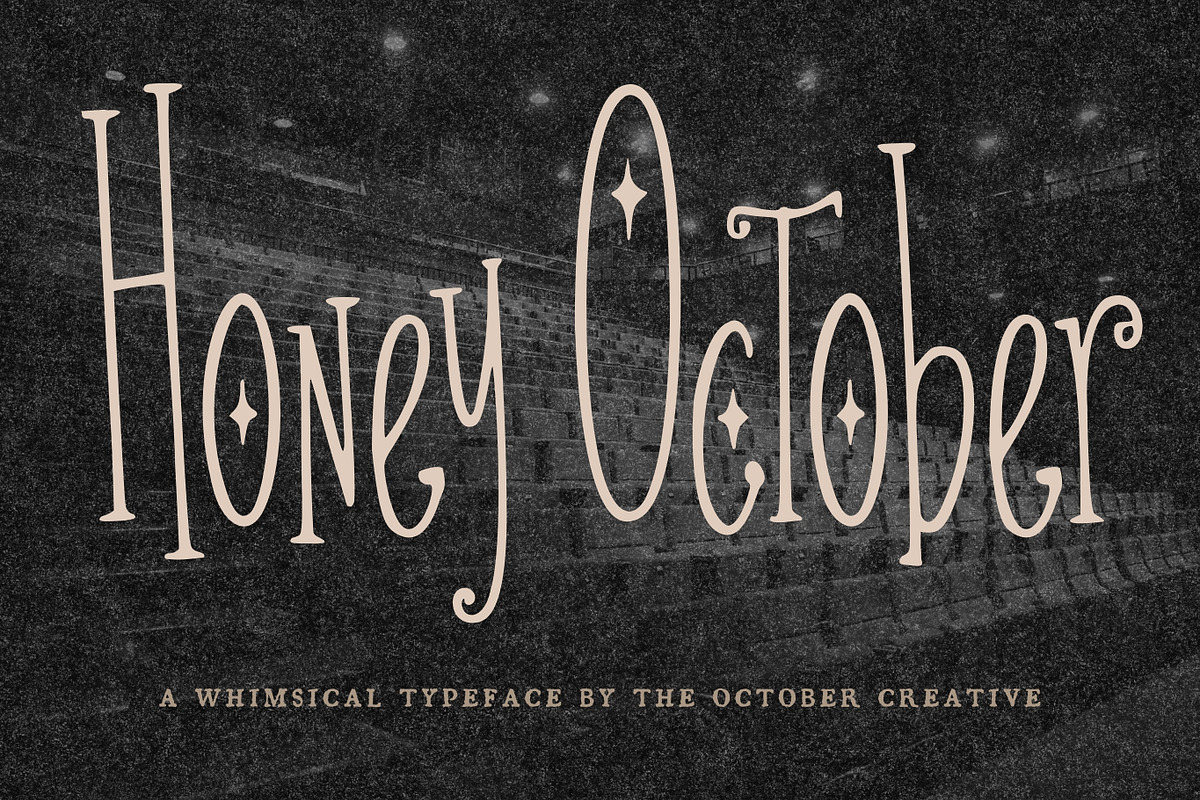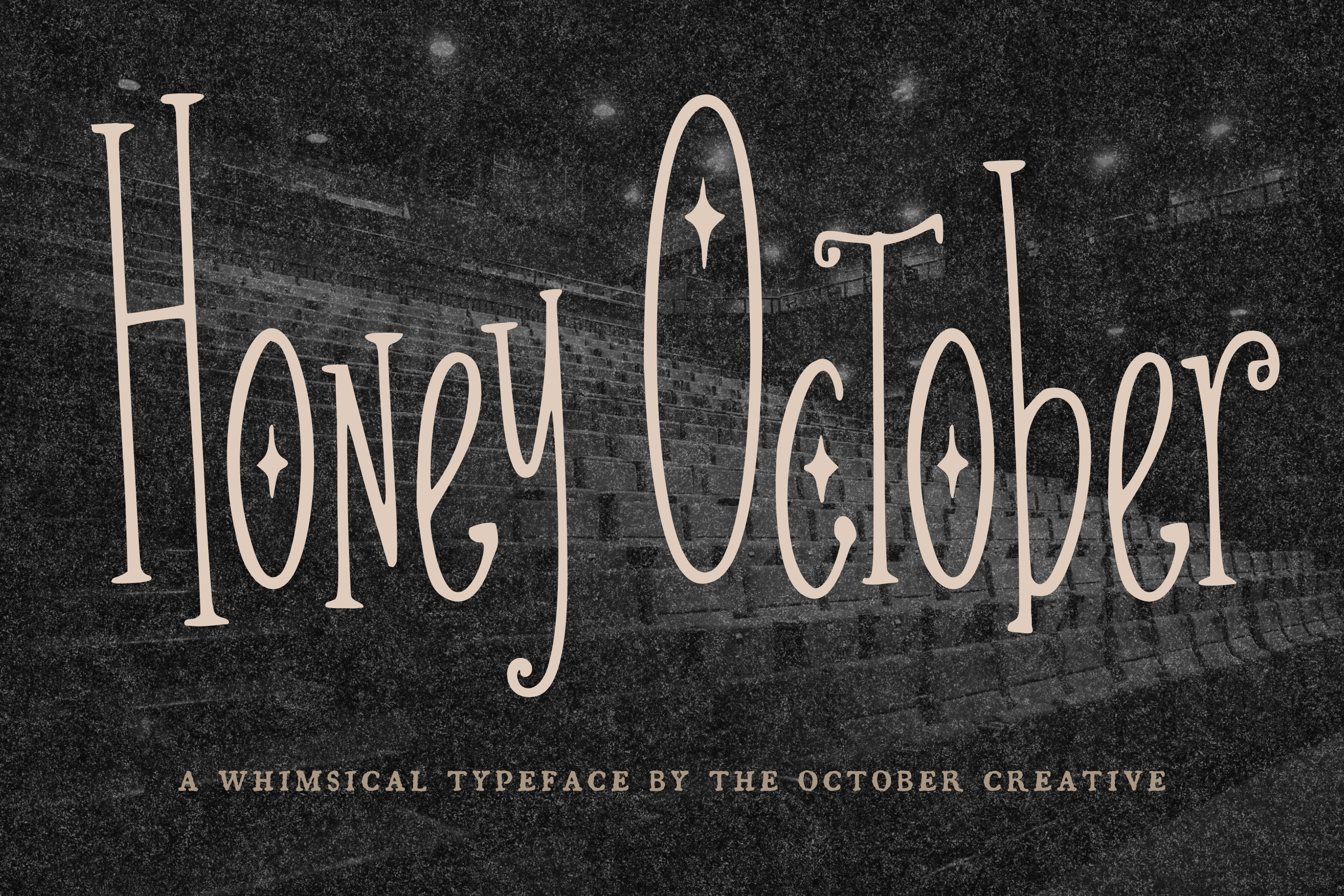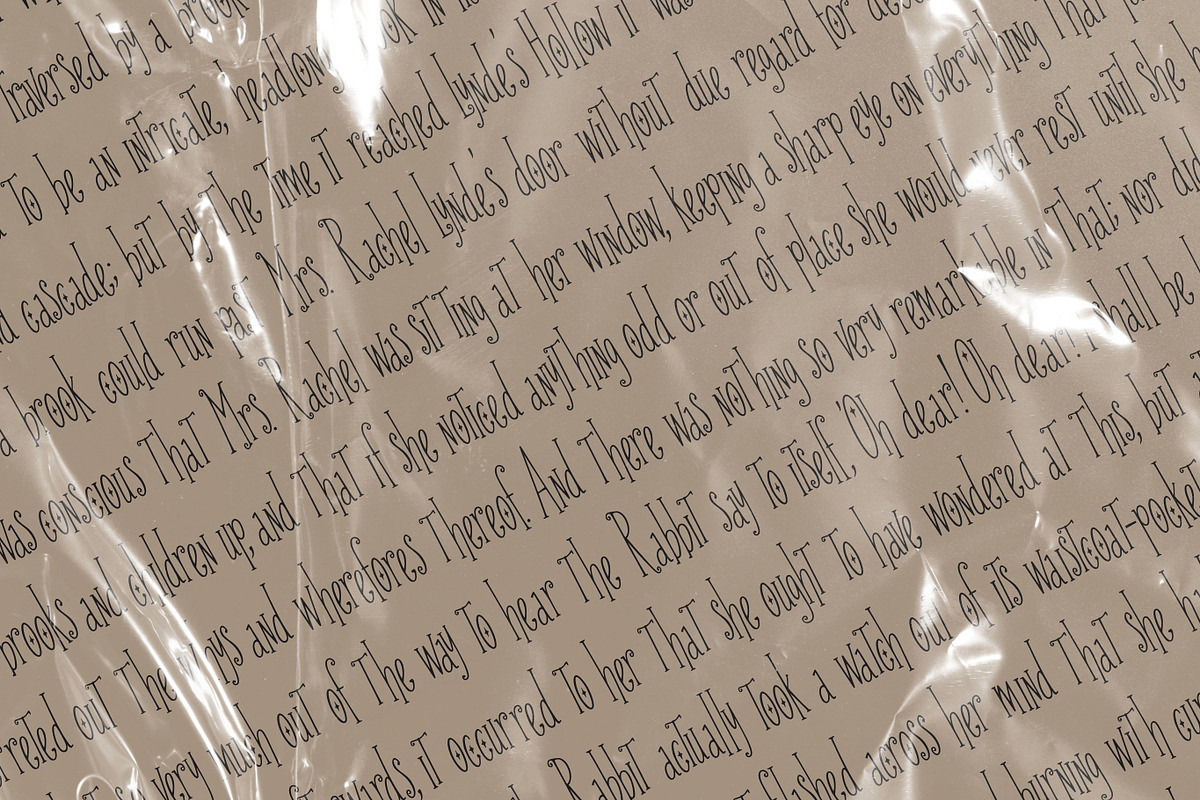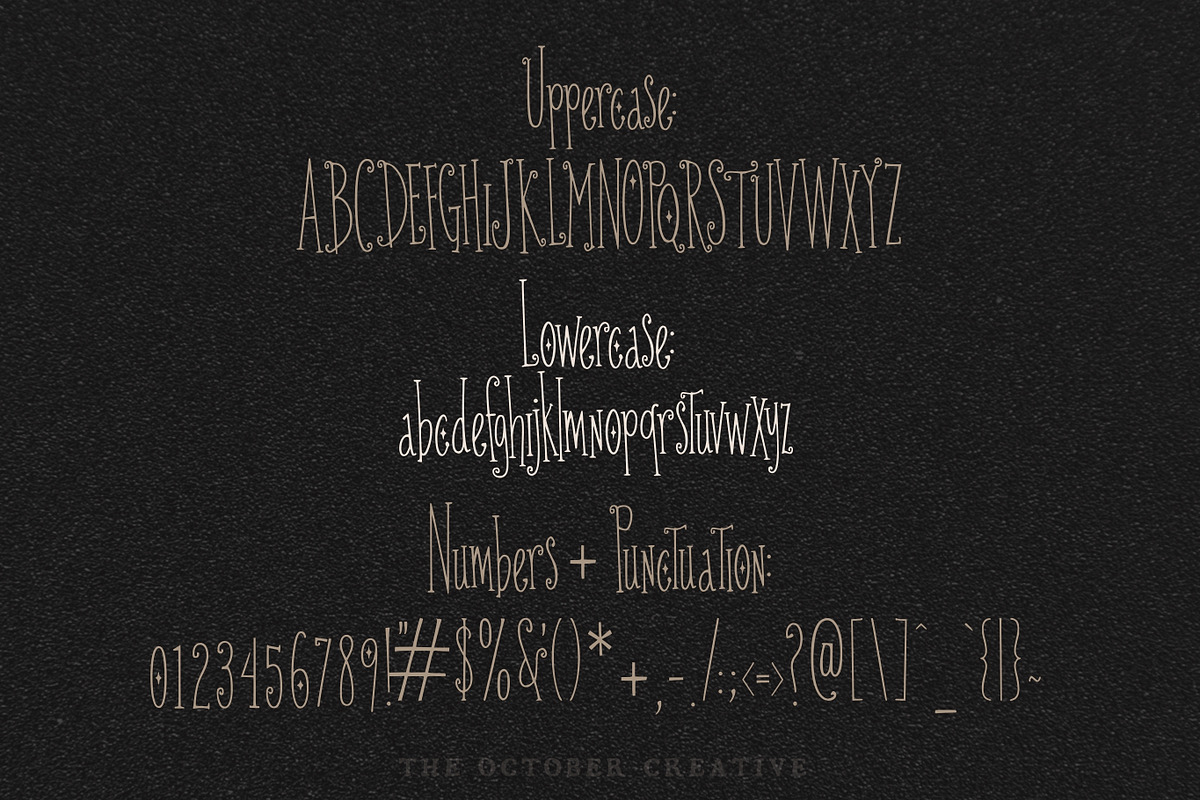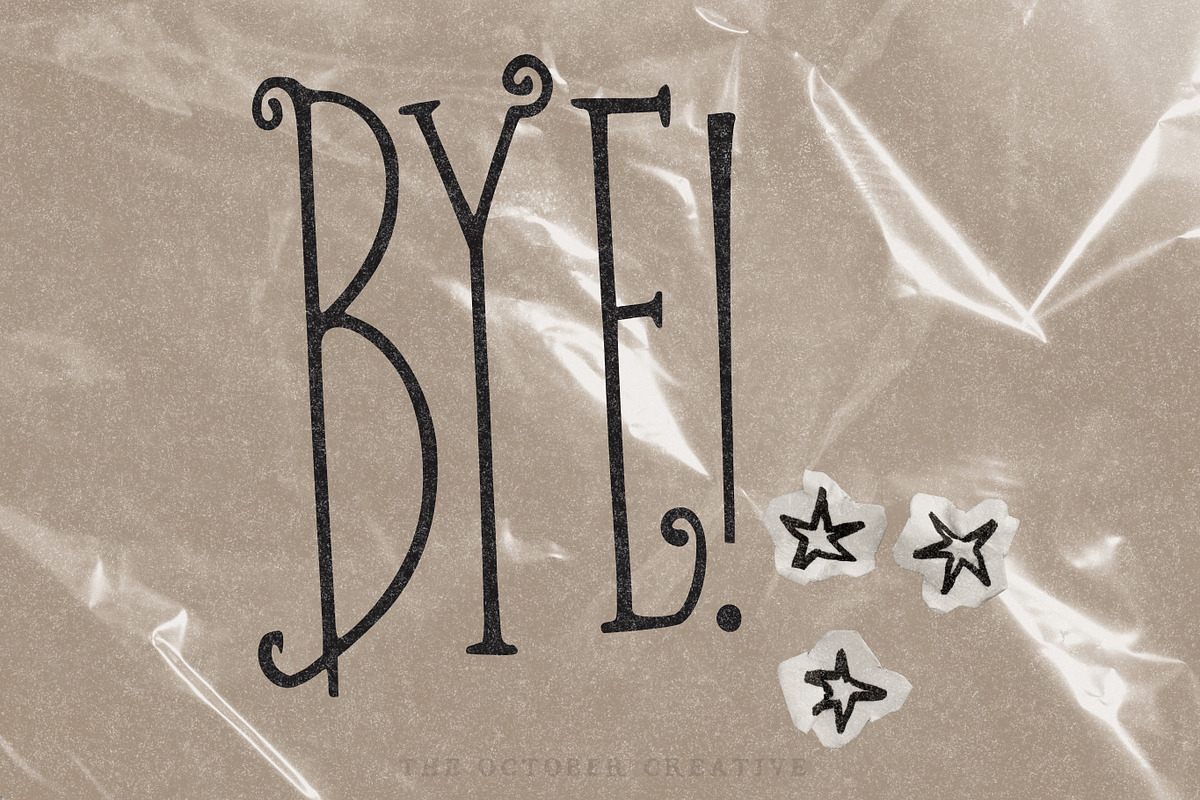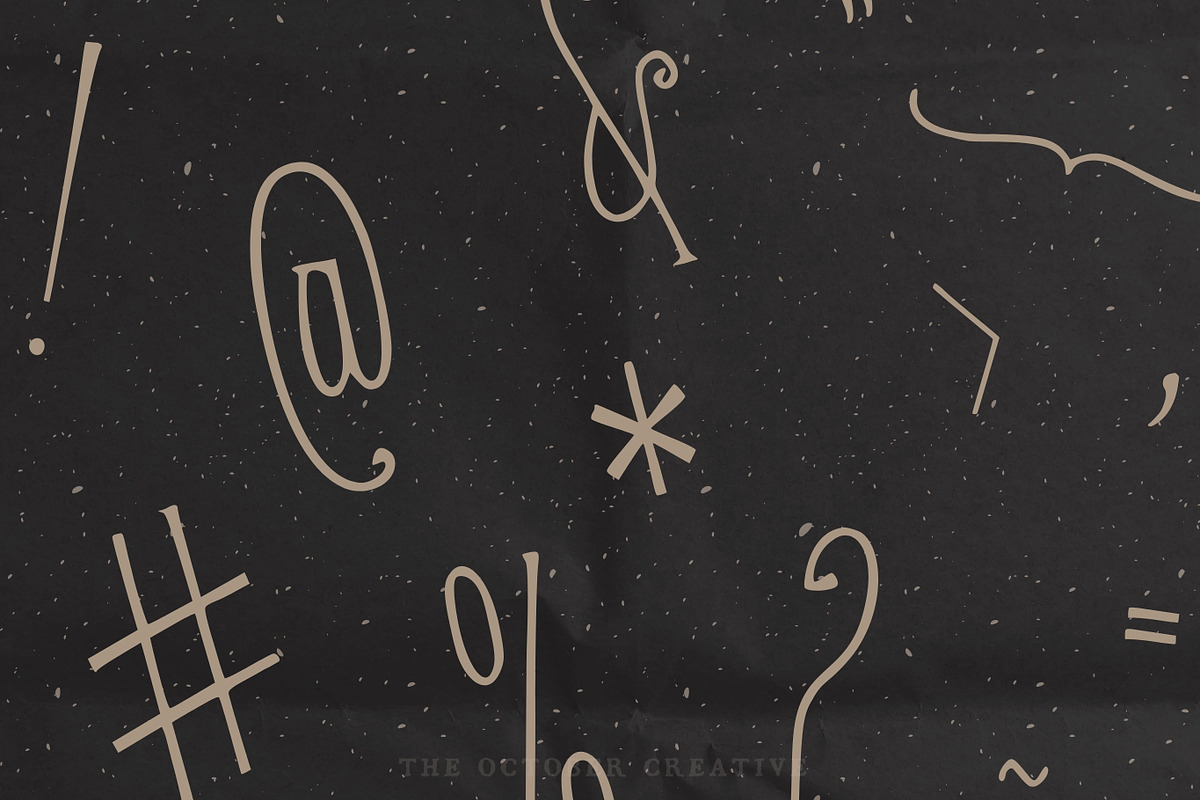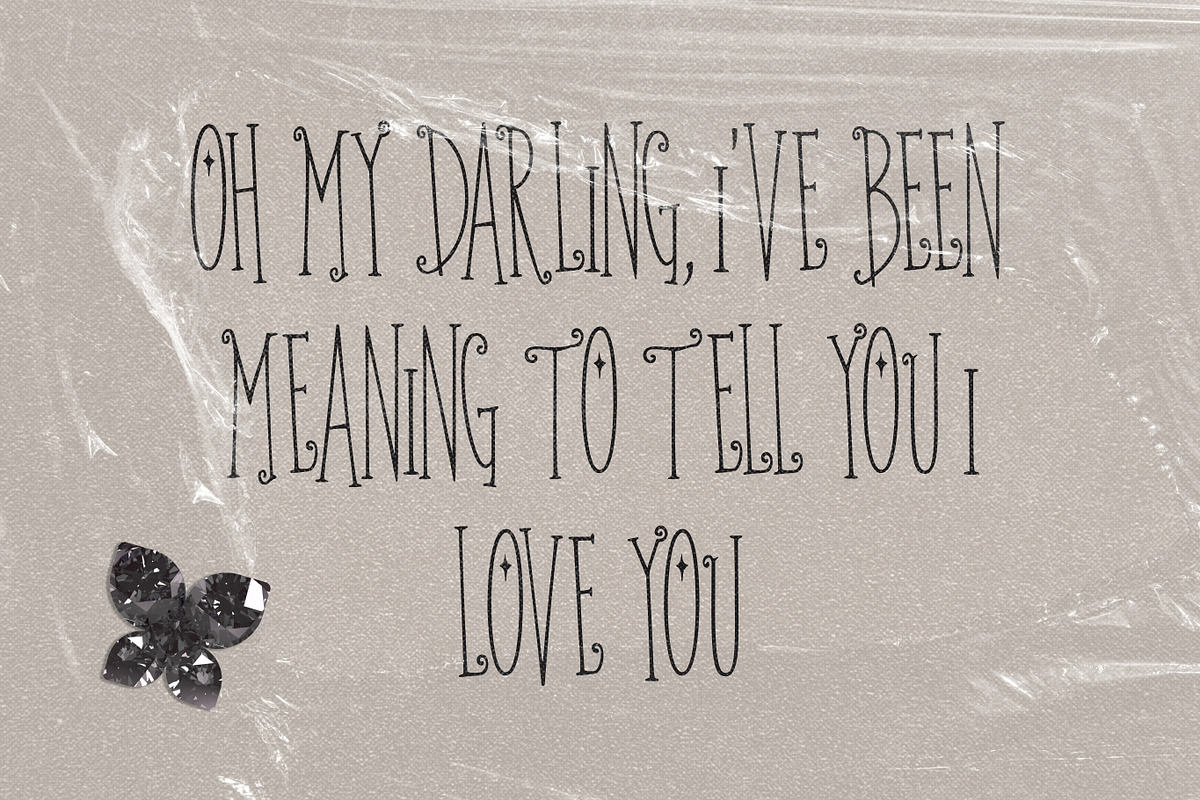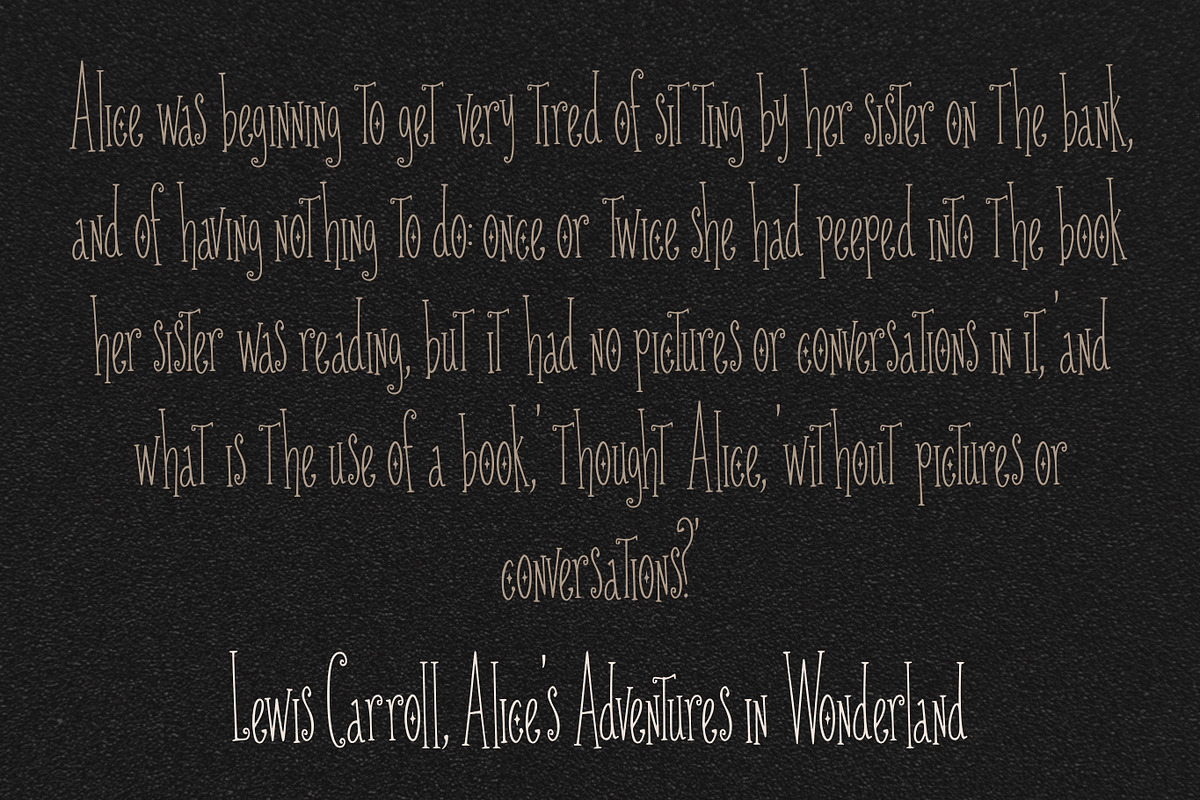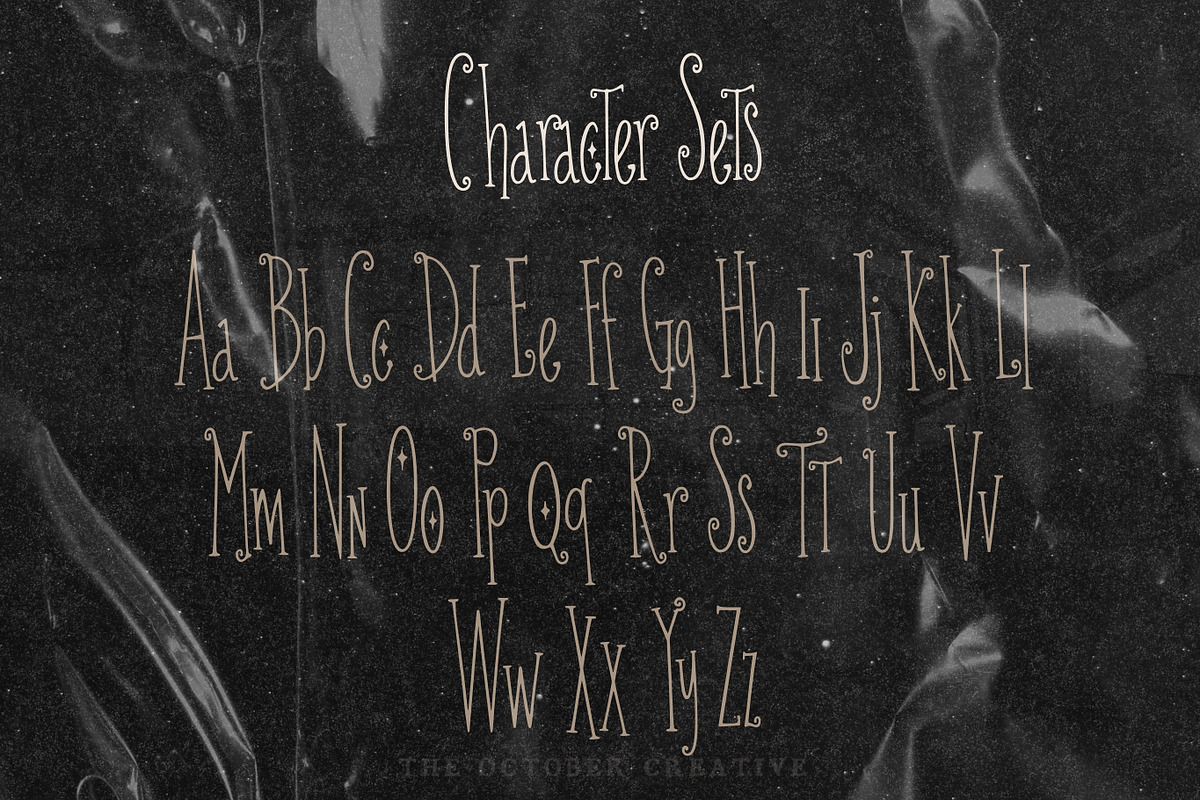
Honey October Sparkle Serif Font
Honey October is a tall, condensed serif font with four-point sparkle stars set inside some of its round letters. It's made for fall wedding invitations, autumn menus, Halloween cards, and celestial prints.
CHARACTER SET
Uppercase A to Z, lowercase a to z, numerals 0 to 9, and every standard keyboard punctuation mark and symbol: ! " # $ % & ' ( ) * + , - . / : ; < = > ? @ [ \ ] ^ _ ` { | } \~
Curly quotes and apostrophes (‘ ’ “ ” ‚ „), en and em dashes, an ellipsis, and a bullet.
Accented letters: À Á Â Ã Ä Å Ç È É Ê Ë Ì Í Î Ï Ñ Ò Ó Ô Õ Ö Ù Ú Û Ü and their lowercase forms.
LANGUAGES SUPPORTED
English, plus the accented vowels, Ñ, and Ç used in names and everyday words in Spanish, French, Italian, Portuguese, German, and Dutch. Not included: ß, Æ, Ø, Œ, and the upside-down ¿ and ¡.
SPECIAL CHARACTERS
There are no hidden alternates or ligatures, so every character types straight from the keyboard. Accented letters type with your keyboard's usual accent shortcuts (on a Mac, hold down the letter), or you can insert them from the Glyphs panel in your design software, the Character Viewer on a Mac, or Character Map on Windows.